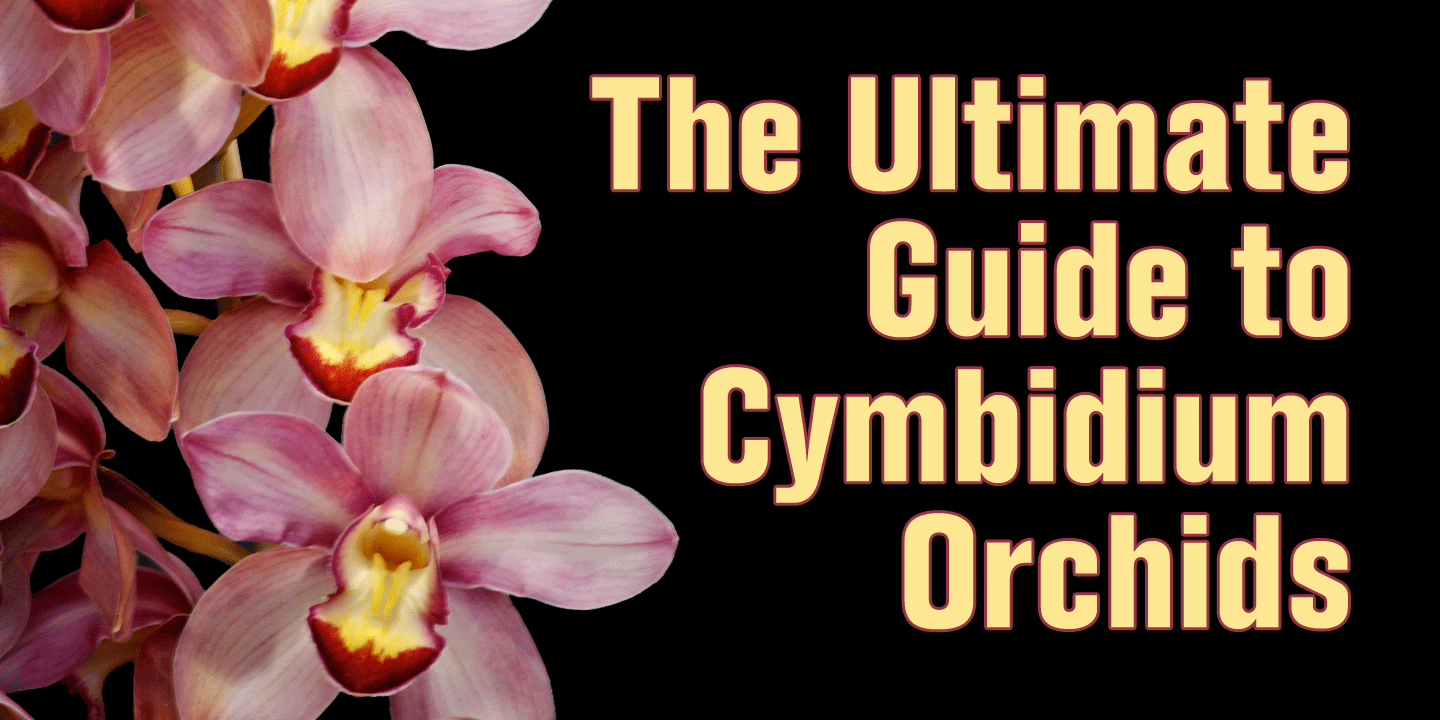
Standard CT Font Free Download
Standard CT Font is perfect for corporate documentation, business communications, professional reports, technical manuals, government publications, and standardized forms. Its reliable character makes it ideal for ISO compliance materials, regulatory documentation, industry standards publications, corporate guidelines, and any application requiring consistent typography that conveys professional reliability, institutional authority, and universal accessibility.
Standard CT Font is exciting because it embodies the principles of typographic standardization through carefully calibrated letterforms that ensure consistent readability across all professional applications. Its neutral yet distinctive character reflects the highest standards of corporate communication while maintaining exceptional legibility in diverse contexts, making it perfect for organizations requiring reliable, standardized typography solutions. The font's systematic design eliminates ambiguity and promotes clear, professional communication.
Standard CT Font family includes systematically designed weight variations typically featuring Light, Regular, Medium, Bold, and Black options with corresponding italic styles and condensed variants. The family often incorporates standardized spacing metrics, compliance-ready character sets, and optimized rendering designed for professional documentation applications, providing designers with comprehensive tools for creating consistent, regulation-compliant typographic systems.